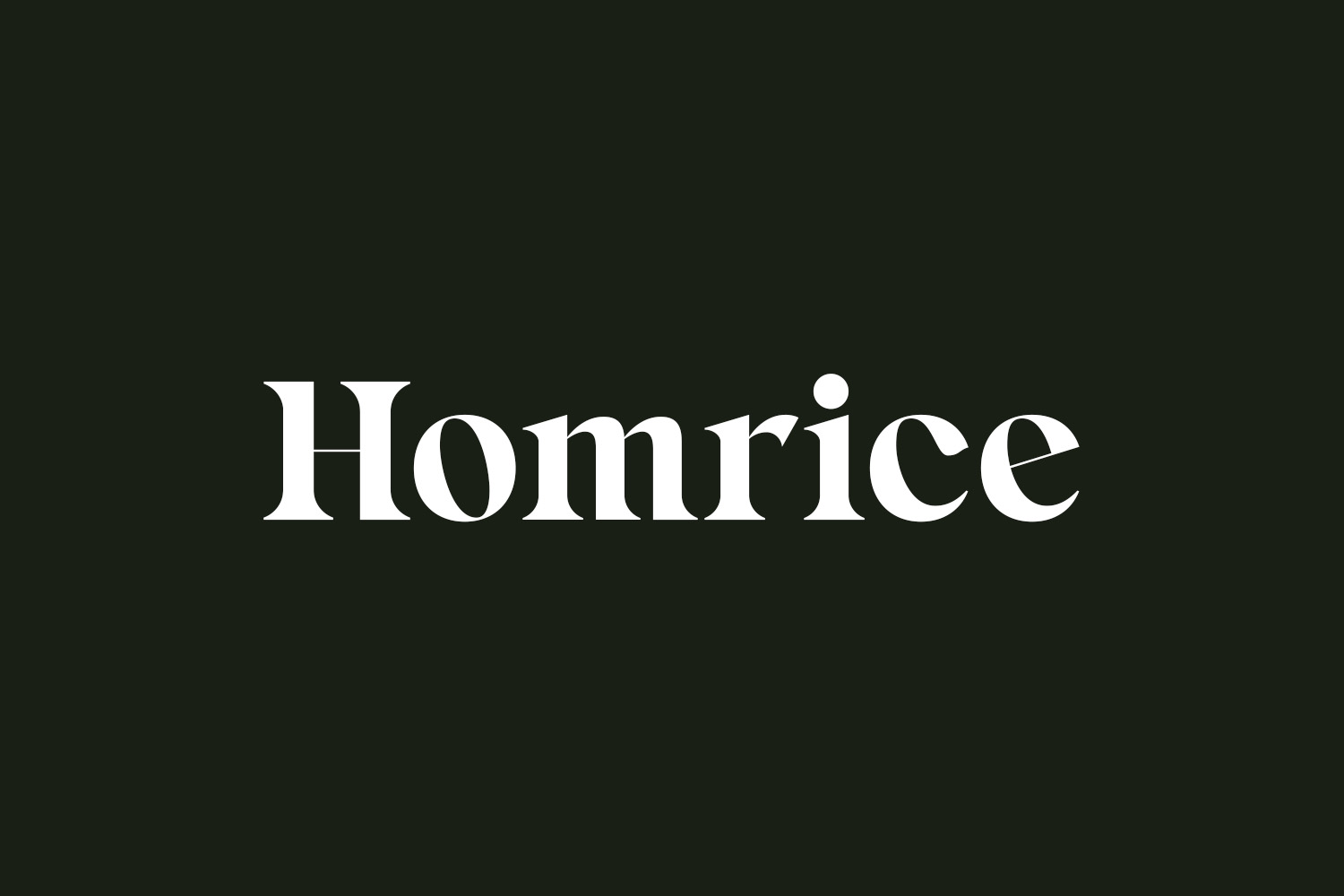
Introducing Homrice Free Font a sophisticated and contemporary serif typeface, expertly crafted to exude class and elegance. Primarily designed for captivating headings, logos, branding, magazines, product packaging, and invitations, Homrice lends a refined charm to your creative endeavors. Its clean lines and seamless curves seamlessly inject a dash of sophistication into every project, ensuring a heightened sense of refinement. Elevate your designs with Homrice and experience the effortless infusion of timeless sophistication into your visual creations. Homrice Free Font is free for personal use only. Please purchase the full version for commercial use.